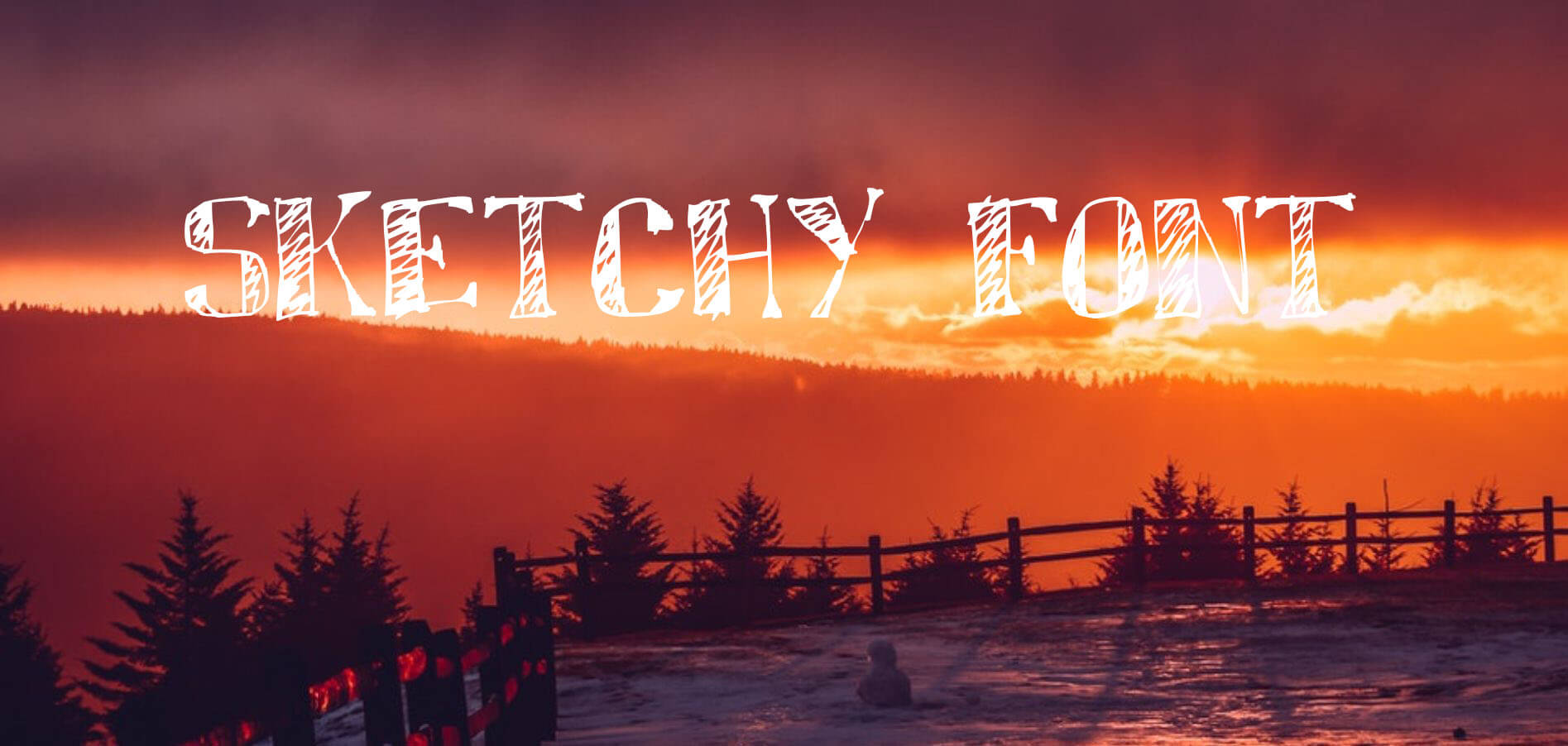
Sketchy Font
Sketchy Font Family was designed and published by SkiillerStudio.This typeface contains impressive 107 unique glyphs and 248 special characters including uppercase, lowercase, numerals, icons, and some special characters too and you can utilize this typeface especially in your art designs and sketch designs.
Features of Sketchy Font
• It has amazing sketchy characters and it always brings a classic look to your texts. It is the most considerable font for card designs and art design projects.
• You can also use this typeface for your attractive headlines and titles as well as casino/hotel names, documentation purposes, elegant signatures, and many other related things.
What kind of font is Sketchy?
This is a script typeface family and the designer and publisher of this attractive font are SkiillerStudio. It contains 107 unique glyphs and 248 special characters that can use for your art designs.
What’s the Closest Font to Sketchy?
There are many similar fonts to the Sketchy font like P22Vincent Font, John Handy Font, and FineHand (SwashCaps) Font but Humswu Font and Sketchbook Font is the closest font to this font.